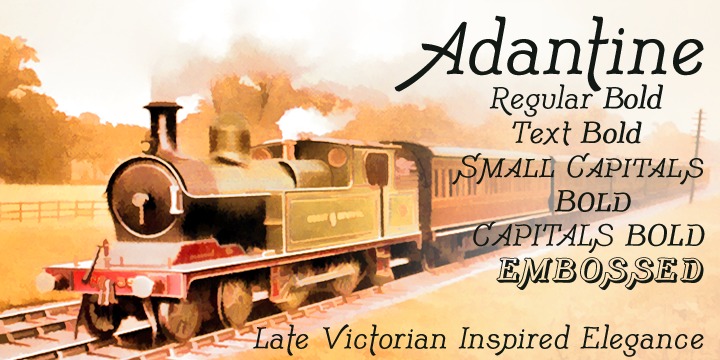
Adantine
Design Credits
Designed by: Paul James Lloyd
Designed when: 2010
Design owned by: Greater Albion Typefounders
Adantine
Adantine offers the opportunity to bring Victorian Elegance and Character to modern design work.
It is inspired by the hand-lettered captions often seen on old sepia-toned postcards, but also has some of the spirit of 19th century advertising cuts. Adantine is offered in regular and text faces, as well as all and small Capitals forms with purpose made swashed capitals, and in a decorative embossed form.
It can be used to set small amounts of text, as well as for headings and display purposes.
Bring some steam-age elegance to your next project!